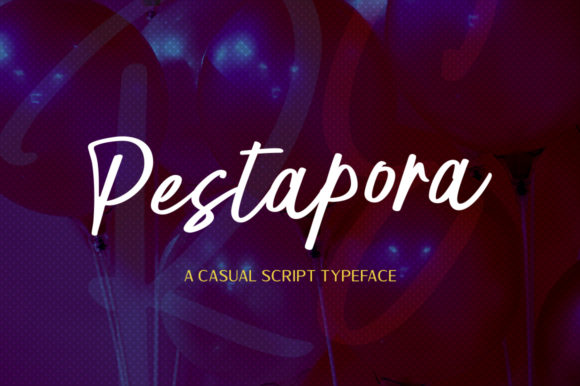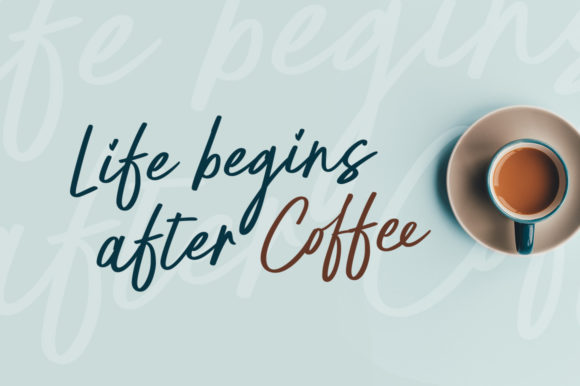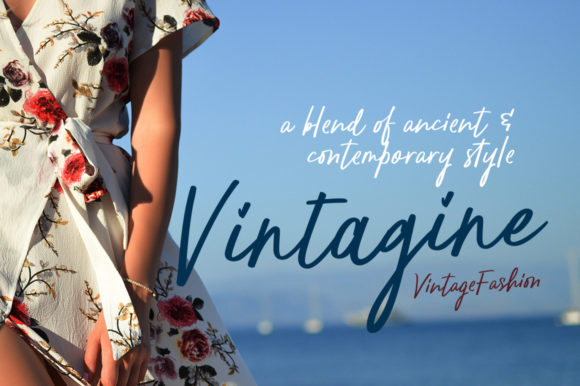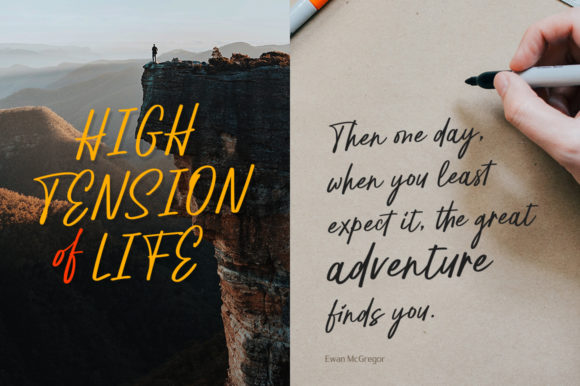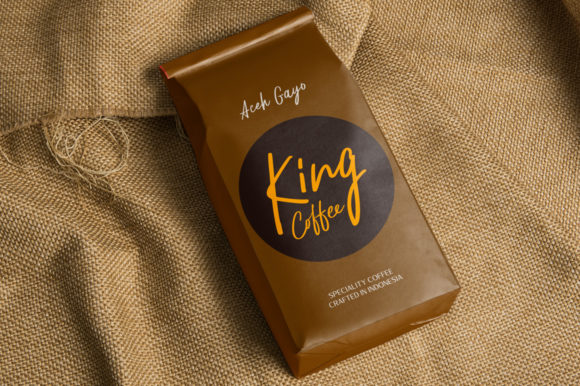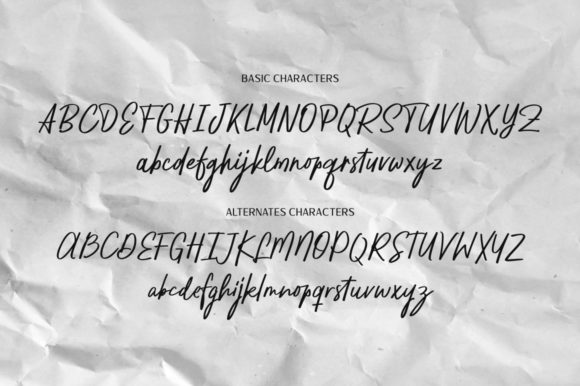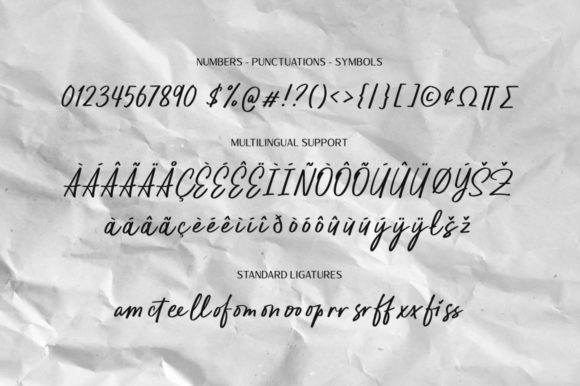
Pestapora Font
About Pestapora Font
Pestapora is a strong and unique handwritten font with a cheerful vibe. It will add a unique spark to any design project.